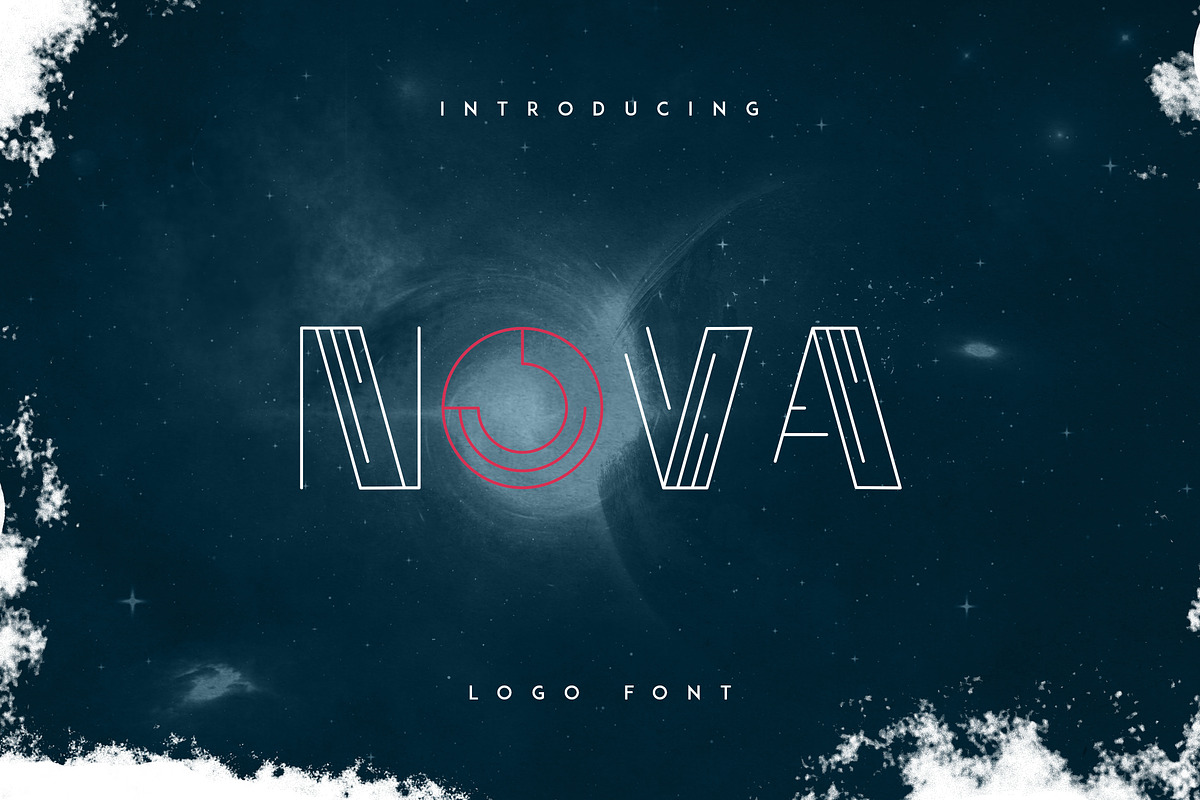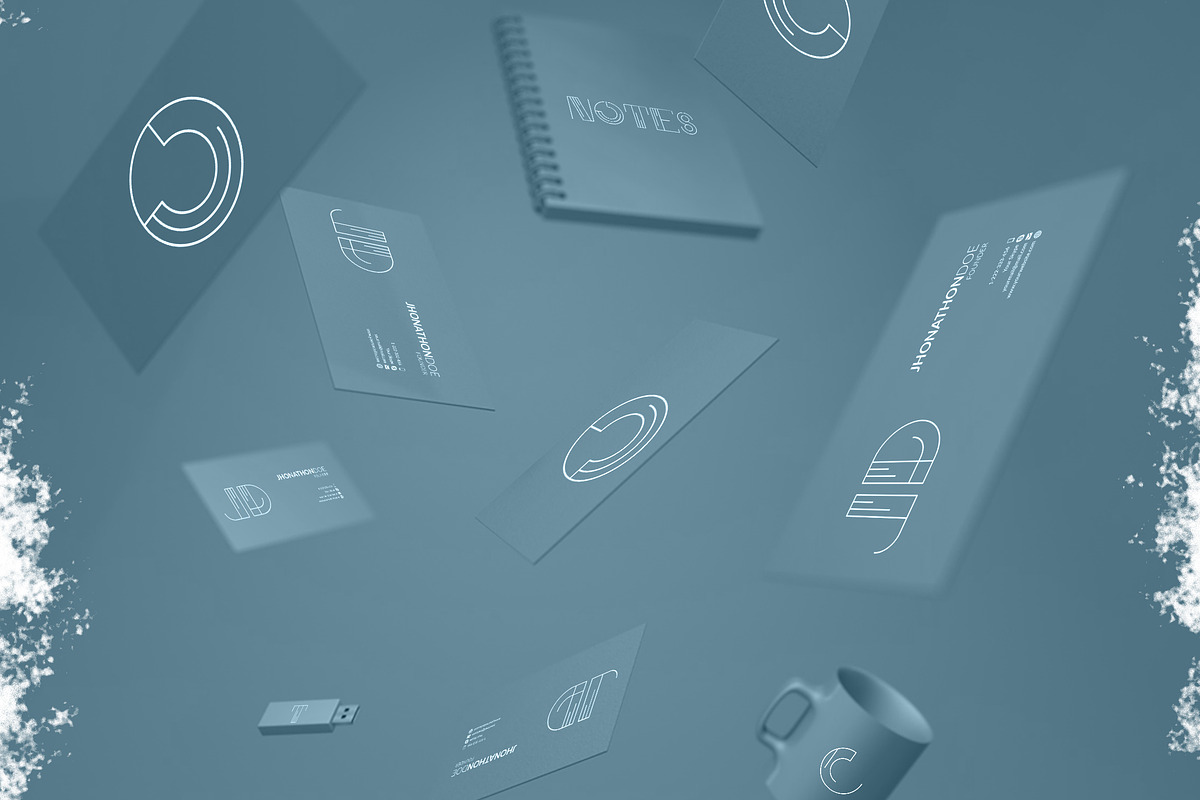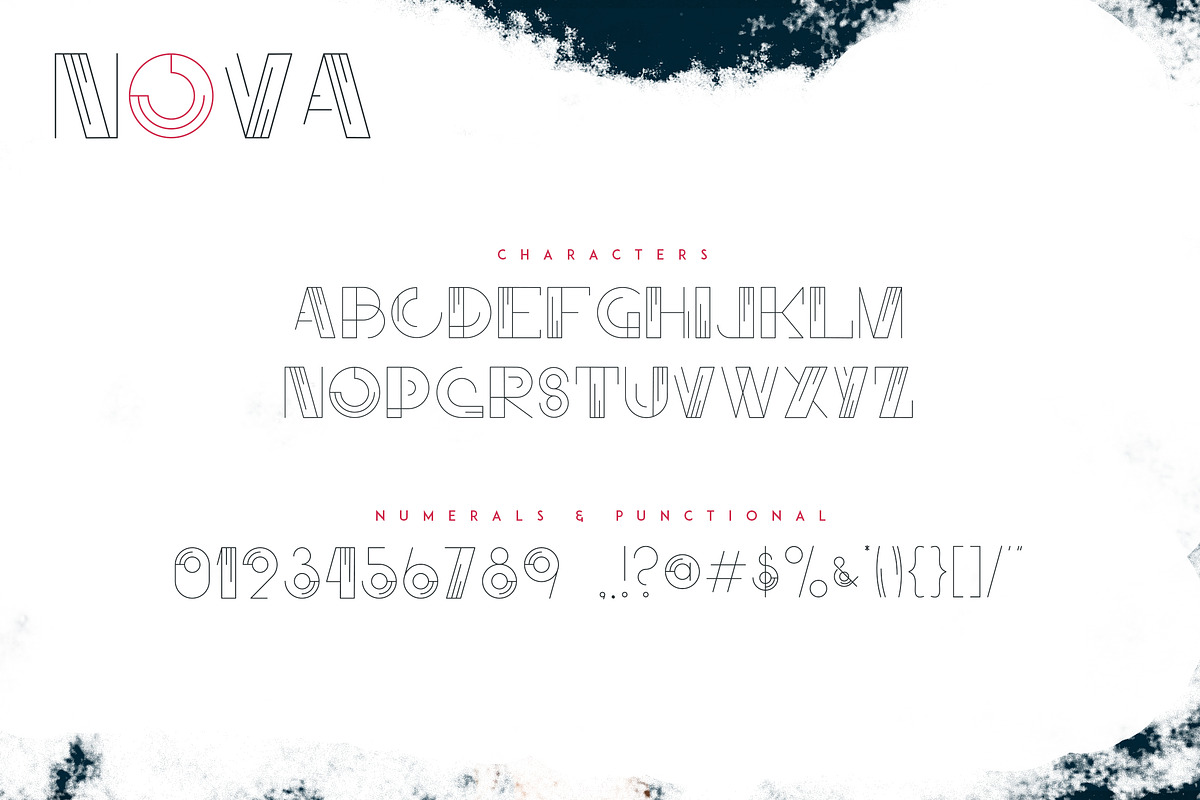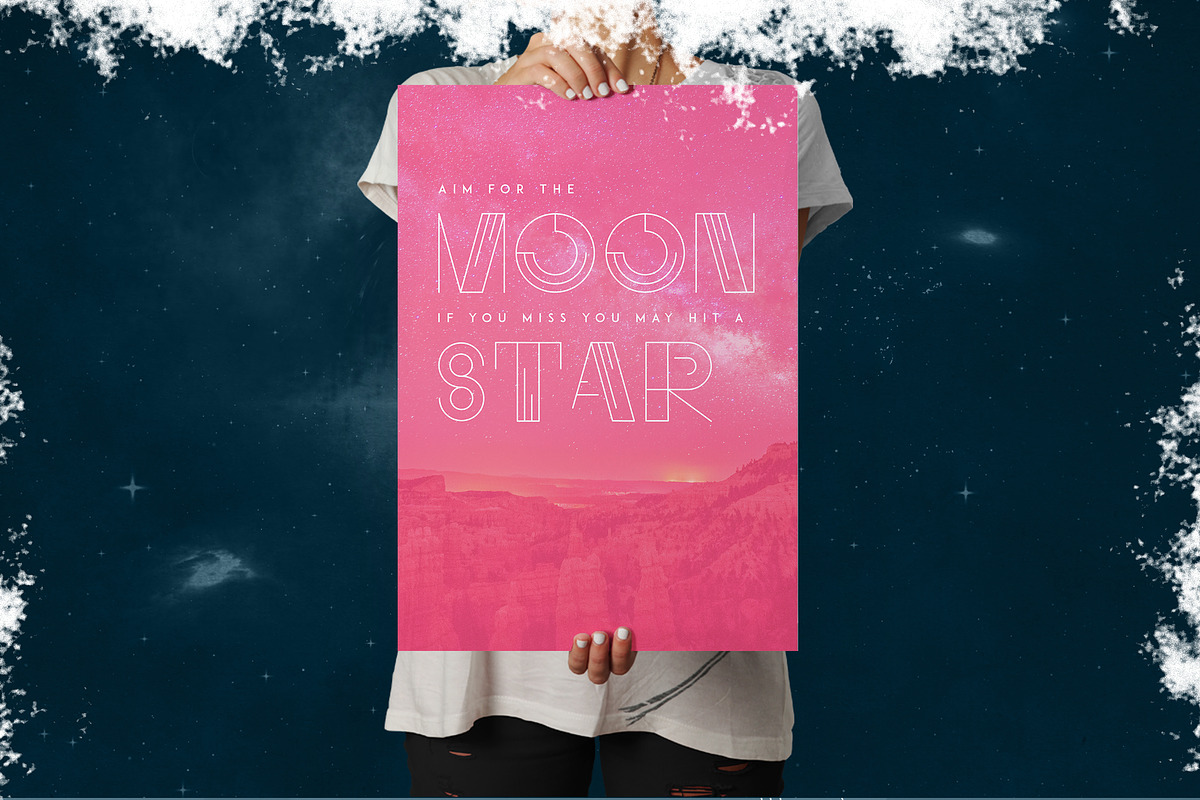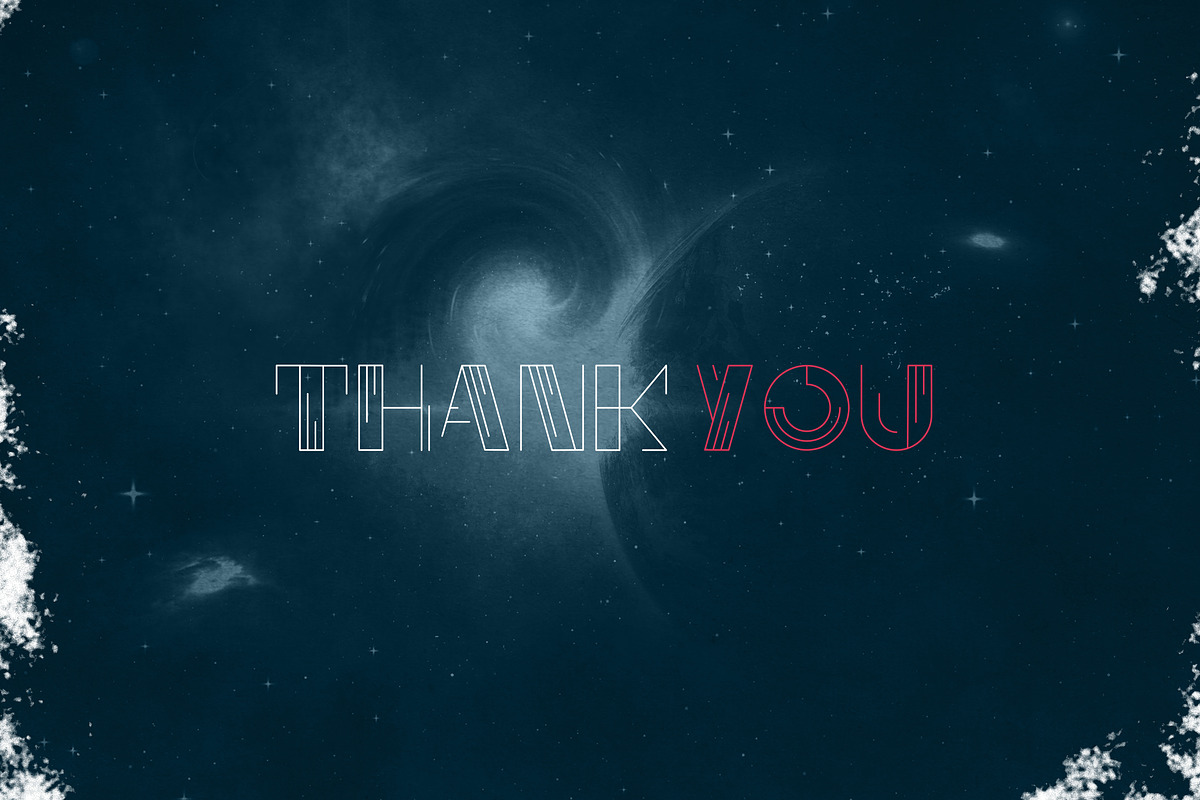
Nova - Logo Font
Nova logo display font
Nova logo display font is with round corners. It's a very versatile typeface that works great in large and small sizes, tight and wide spacing.
Nova - Logo Font by VP Fonts fits naturally into Branding, posters, packaging, typography.